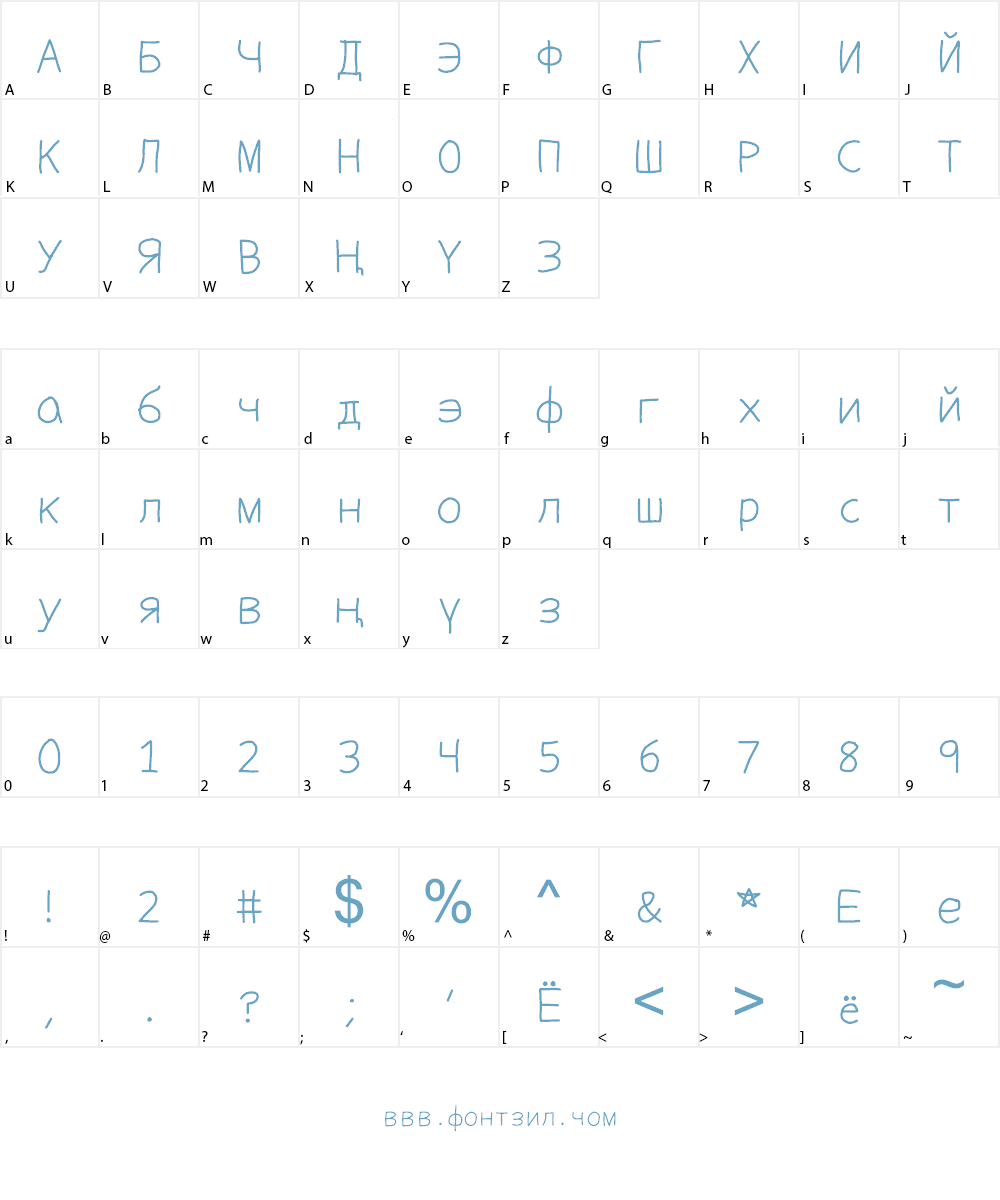
This is the official of Tagalog language if it was converted to Cyrillic, many of this are based on Tatar Cyrillic, I choose Tatar because Russian and other variant doesn't have ng. Unfortunately for those loanword using the letter wasn't​ here should use the letter of their corresponding sound and should be written as how they sound not how they spell in Latin Tagalog. For instant, Quezon should be Kezon (Кезон). This alphabet can be use in all Philippine languages, here are some samples from Tagalog and Bisaya.